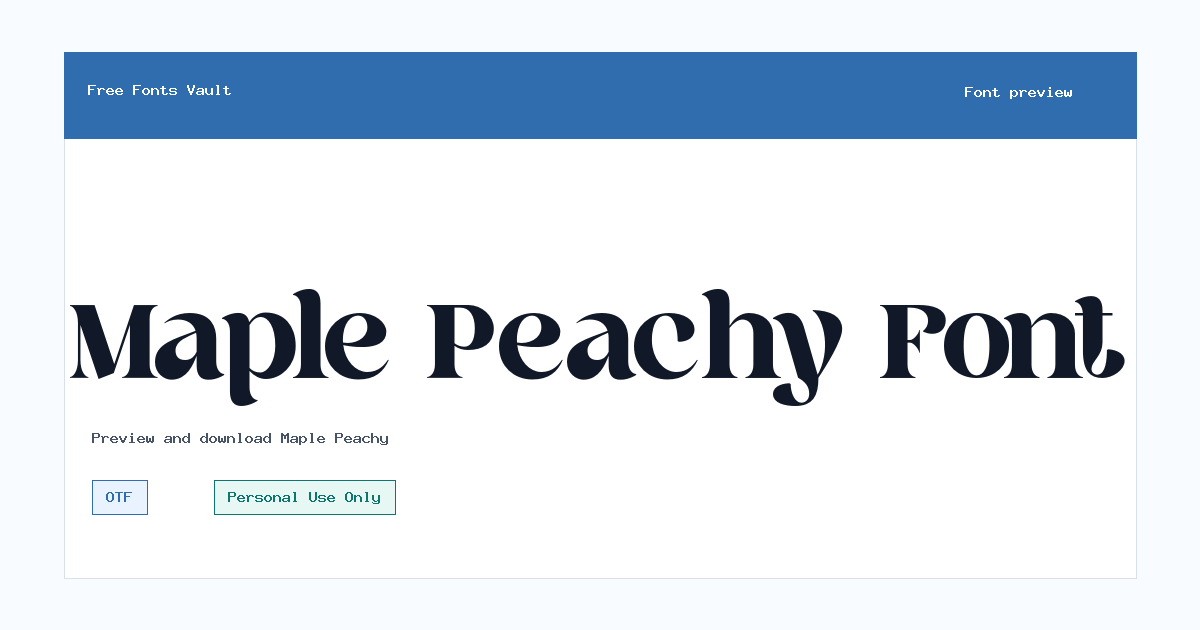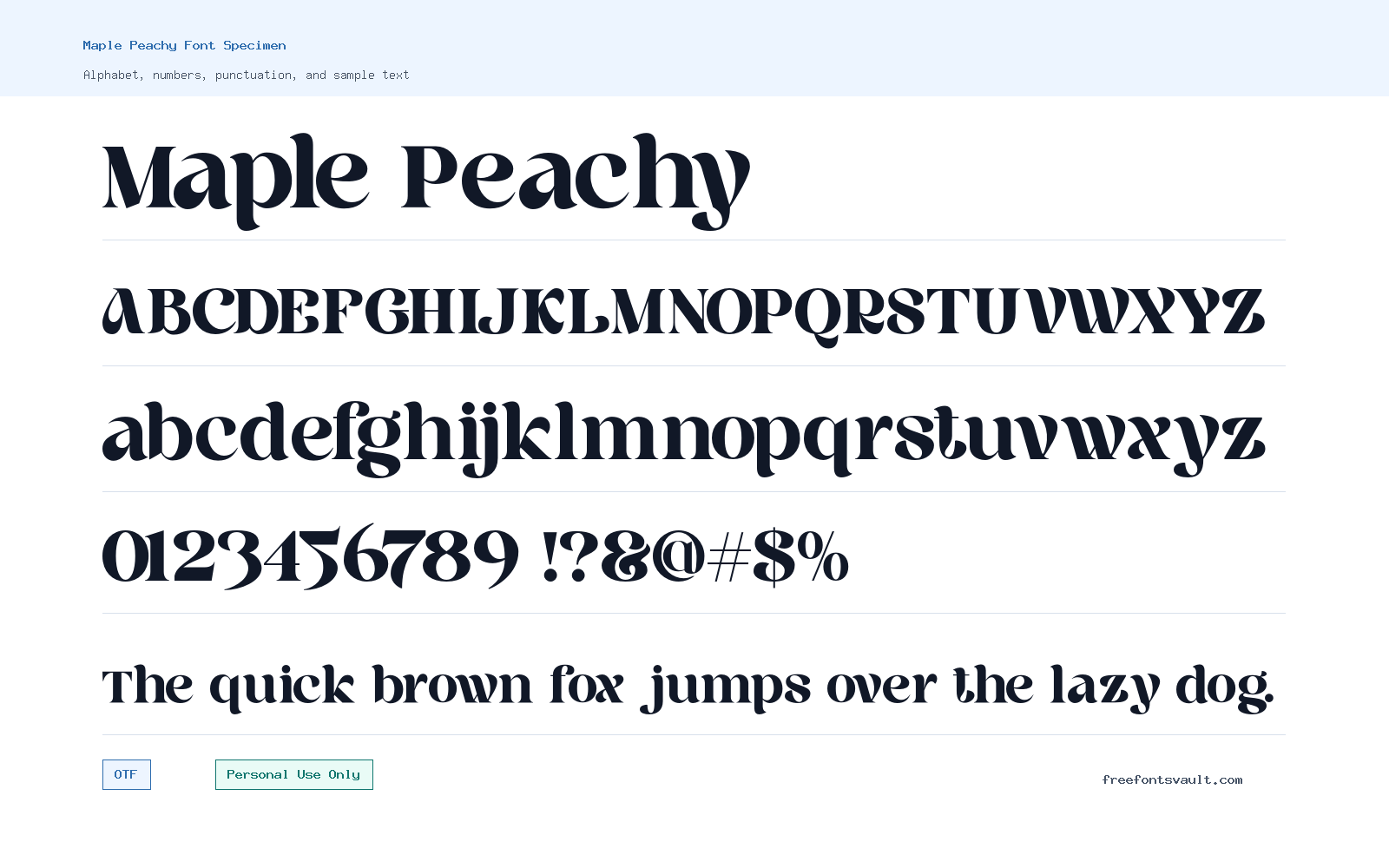
Maple Peachy
Maple Peachy font.
Maple Peachy is a serif display font with a soft, decorative feel that works best when you want text to look warm, stylish, and a little handmade. It is offered as an OTF font file and is licensed for Personal Use Only, so it is a good choice for private mockups, practice designs, and non-commercial creative projects.
About Maple Peachy Font
Maple Peachy has the kind of personality that suits short, carefully placed text rather than long reading passages. Use it where the font can be noticed: a title, a name, a greeting, a quote, a menu heading, or a small piece of packaging-style artwork. Because the family name points to a peachy, friendly mood, it is safest to use the font in projects that need a gentle and approachable tone instead of a formal corporate look.
- Decorative serif display character suited to headings, names, short quotes, and design accents.
- Invitations, greeting cards, personal stationery, scrapbooking, and printable quote art.
- Logo drafts, boutique-style headings, packaging mockups, social graphics, and moodboard typography tests.
Use Maple Peachy as a display font, not as a paragraph font. Start with short text, increase the size, and adjust letter spacing only after checking how the words look in the preview. For a clean layout, combine it with a simple sans serif such as a neutral geometric or humanist style. If the design feels too busy, reduce decorations around the type and let the font carry the personality.
What is Maple Peachy best used for?
It is best for short display text such as invitations, headings, greeting cards, name designs, personal logos, packaging mockups, and social media graphics.
Can I use Maple Peachy for body text?
It is better for headings and accents. For paragraphs or small text, pair it with a simpler, more readable font.